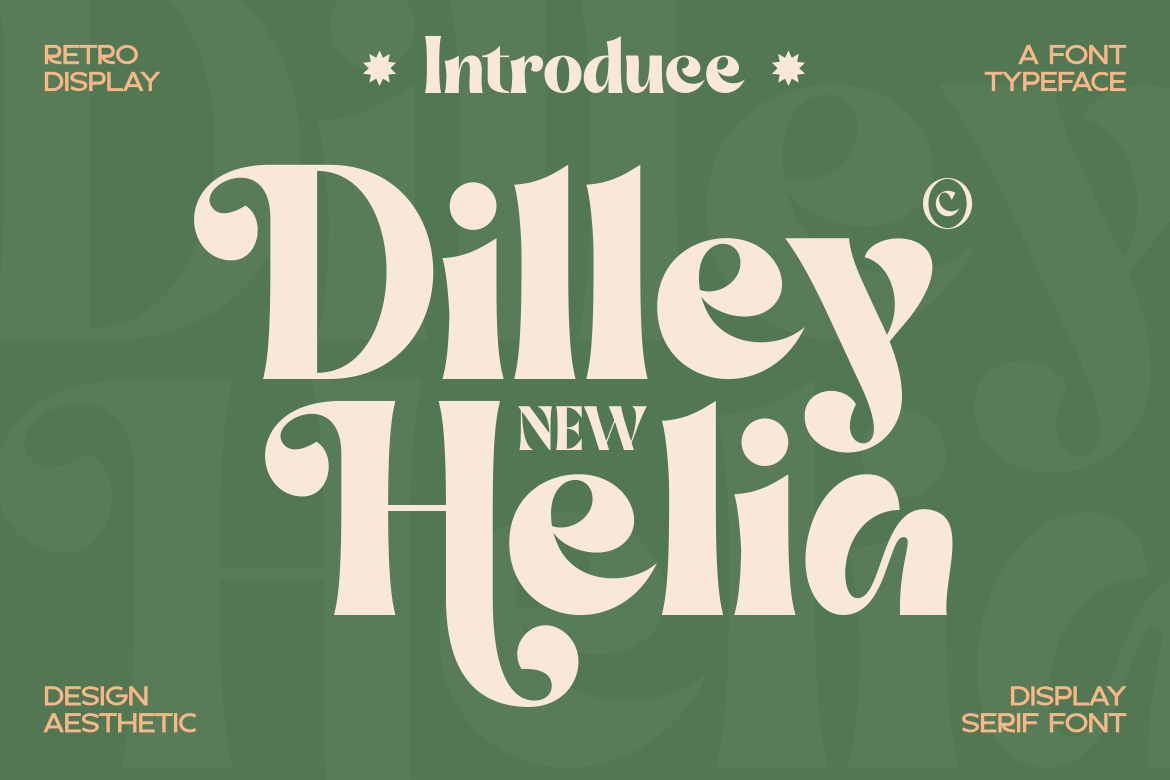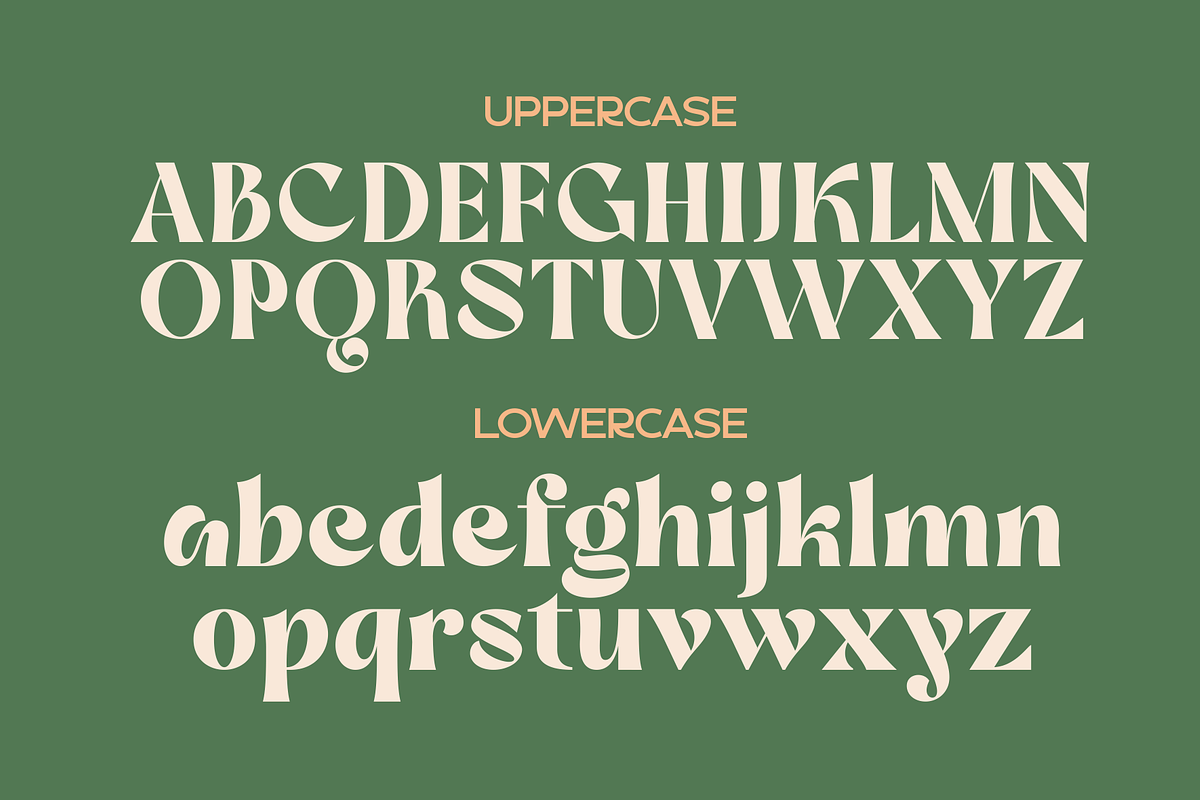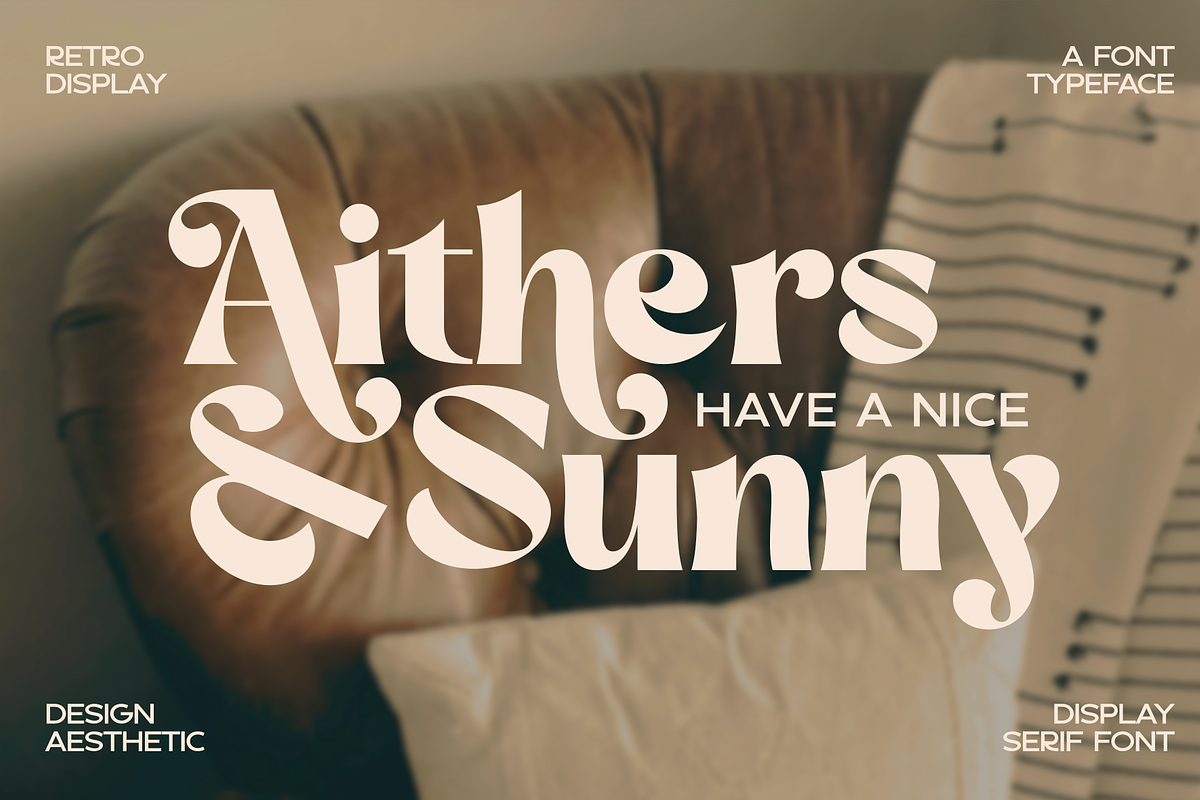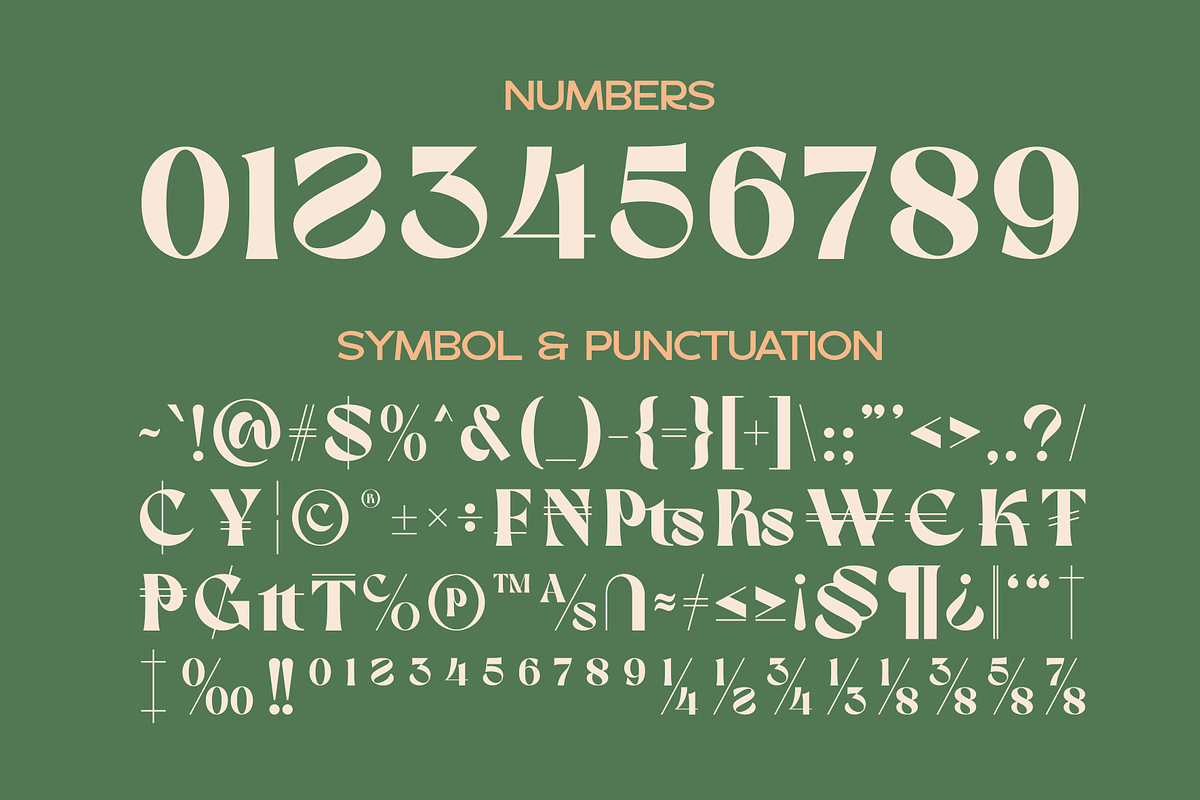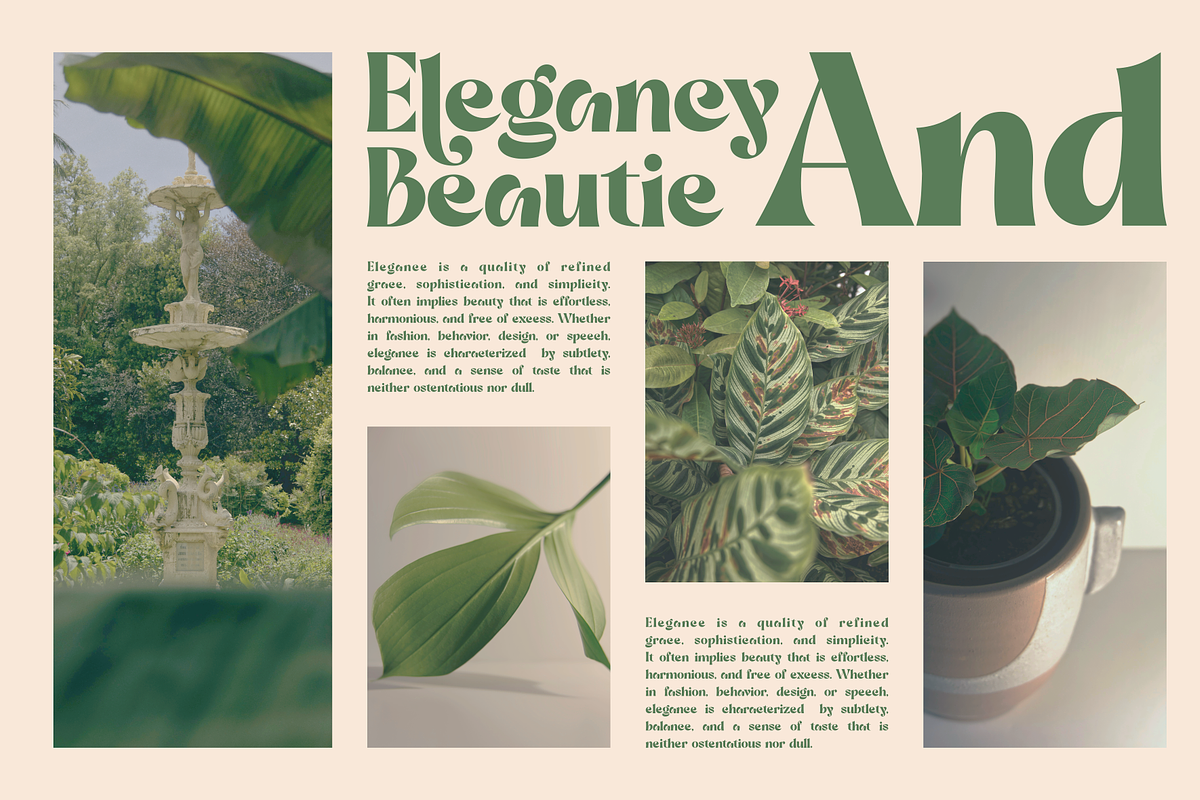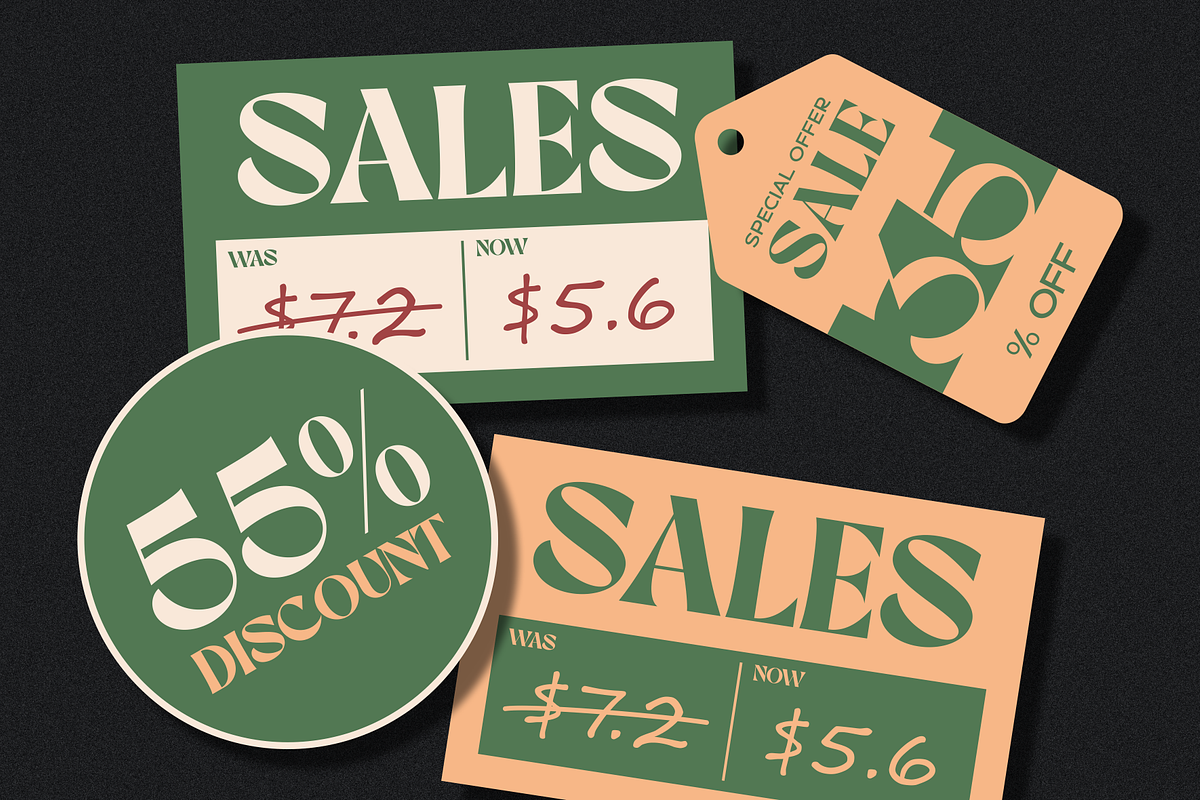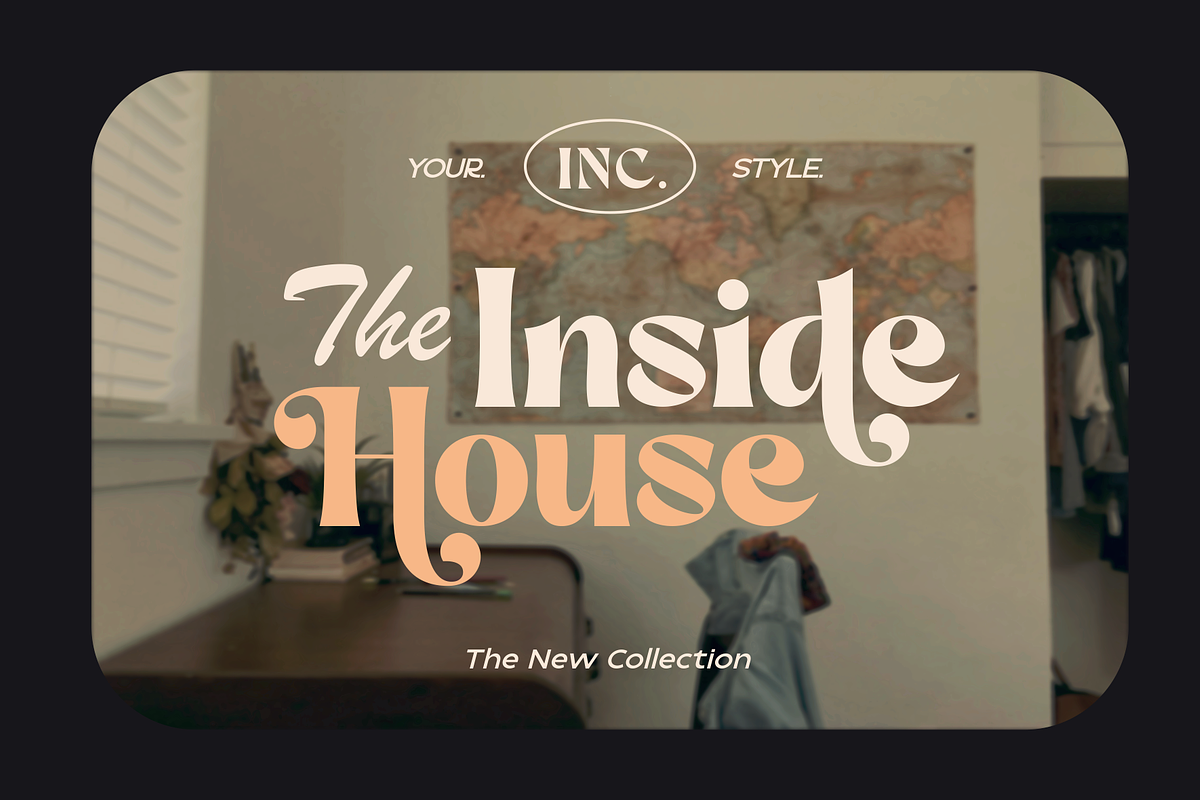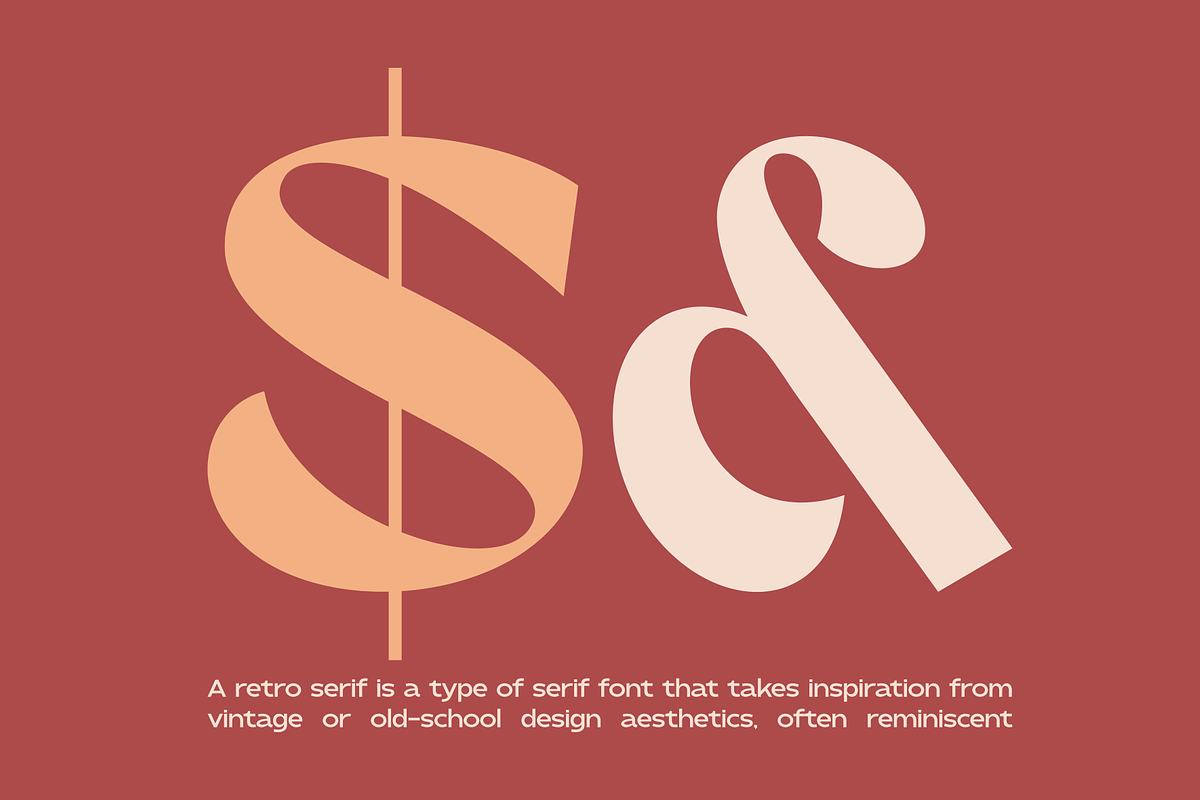
Dilley Helia - Serif Retro Typeface
Introducing our new product Dilley Helia - Serif Retro Typeface
This font features a balanced proportion of stroke thickness and fineness, creating attractive and easy-to-read visuals. This modern serif style is often characterized by a bold distinction between thick and thin lines, providing a touch that is understated but still stands out.